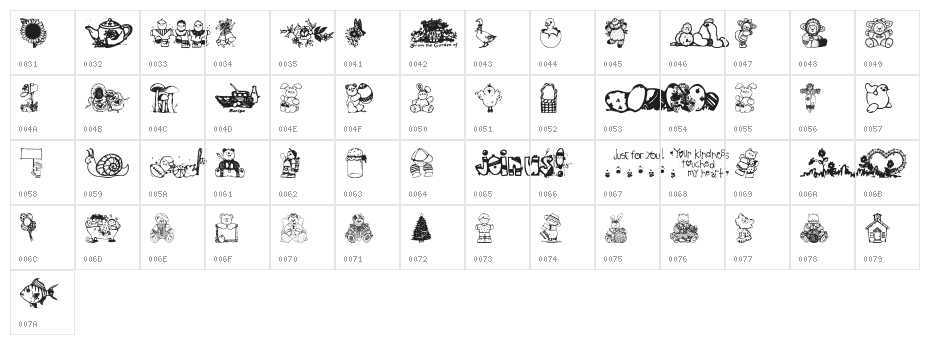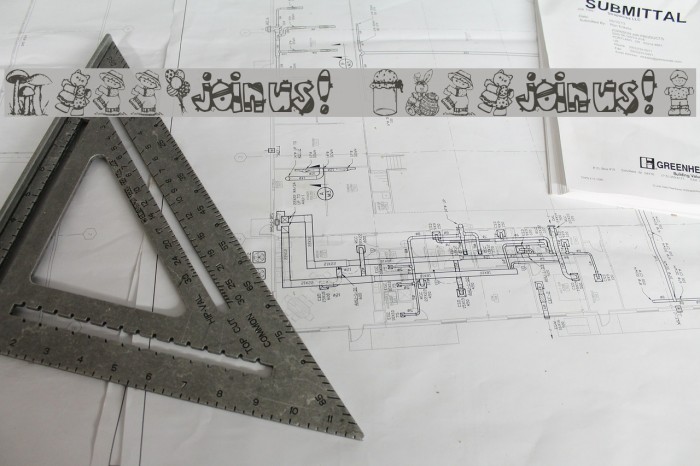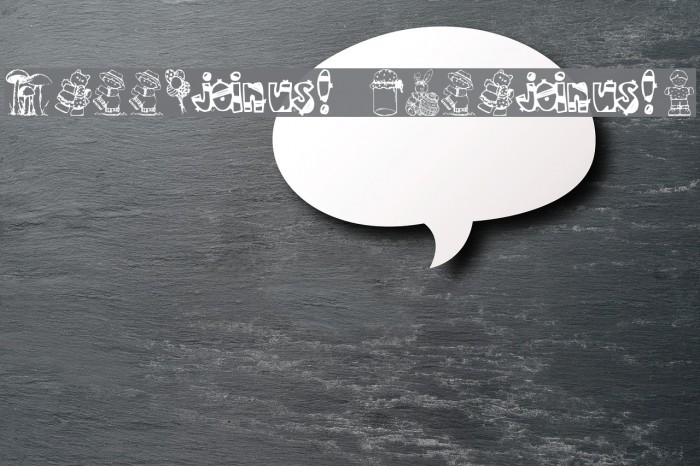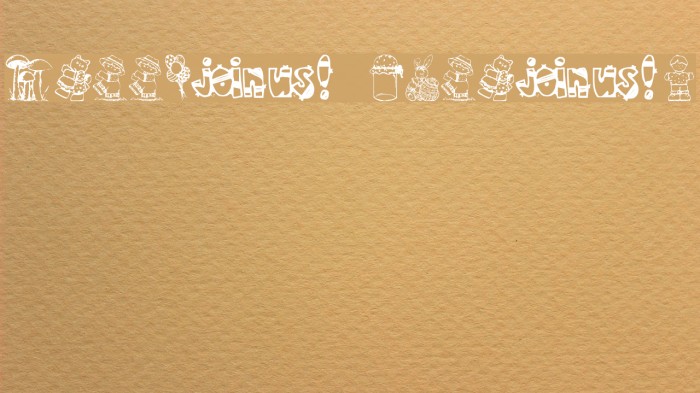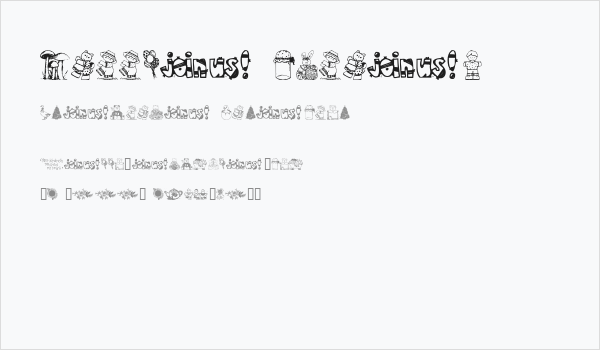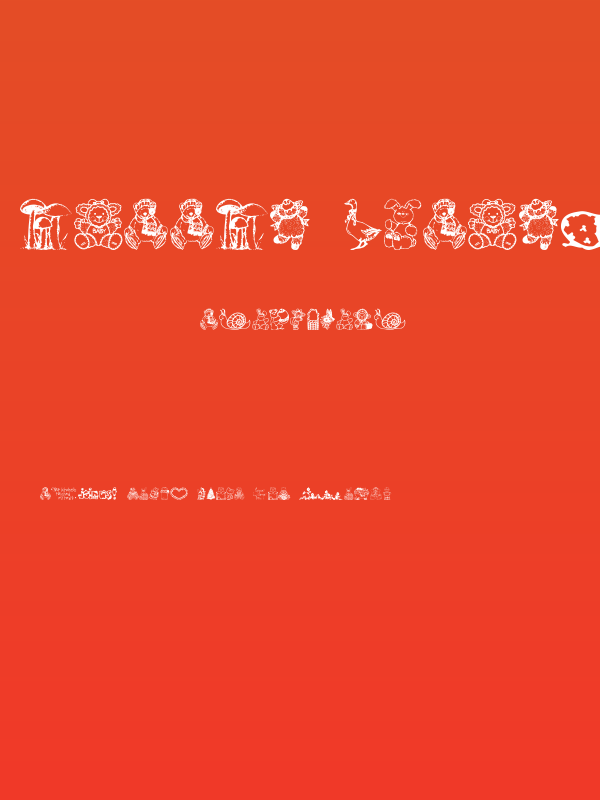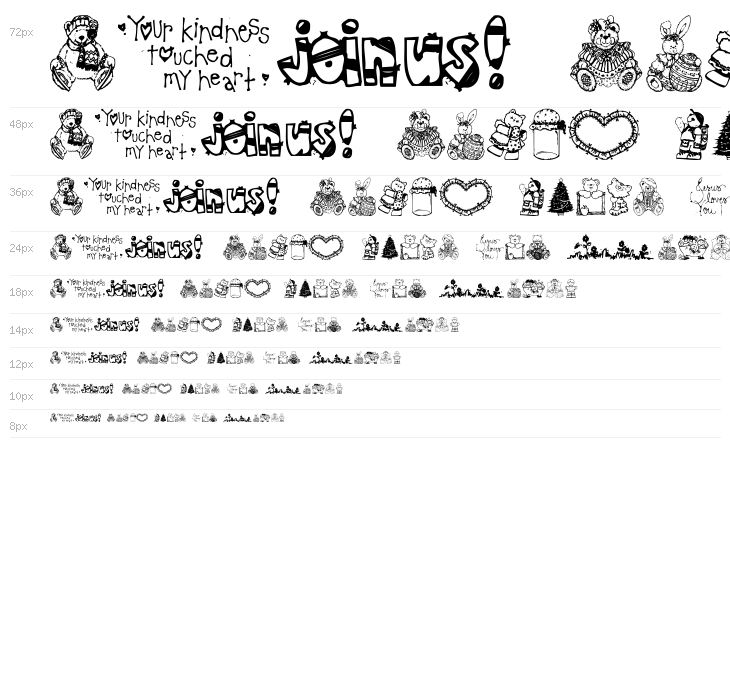
Little cuties Font
Little cuties Description
This is a decorative font featuring whimsical and playful illustrations integrated into each character. The designs include various cute and charming elements such as animals, flowers, and holiday-themed icons. Each character is unique, with intricate details that add a sense of fun and creativity. The font is highly decorative, making it suitable for projects that require a touch of whimsy and imagination. The characters are not uniform in size or style, emphasizing the playful nature of the font.
| Proposed Projects | Ideal for children's books, greeting cards, playful invitations, and decorative posters. |